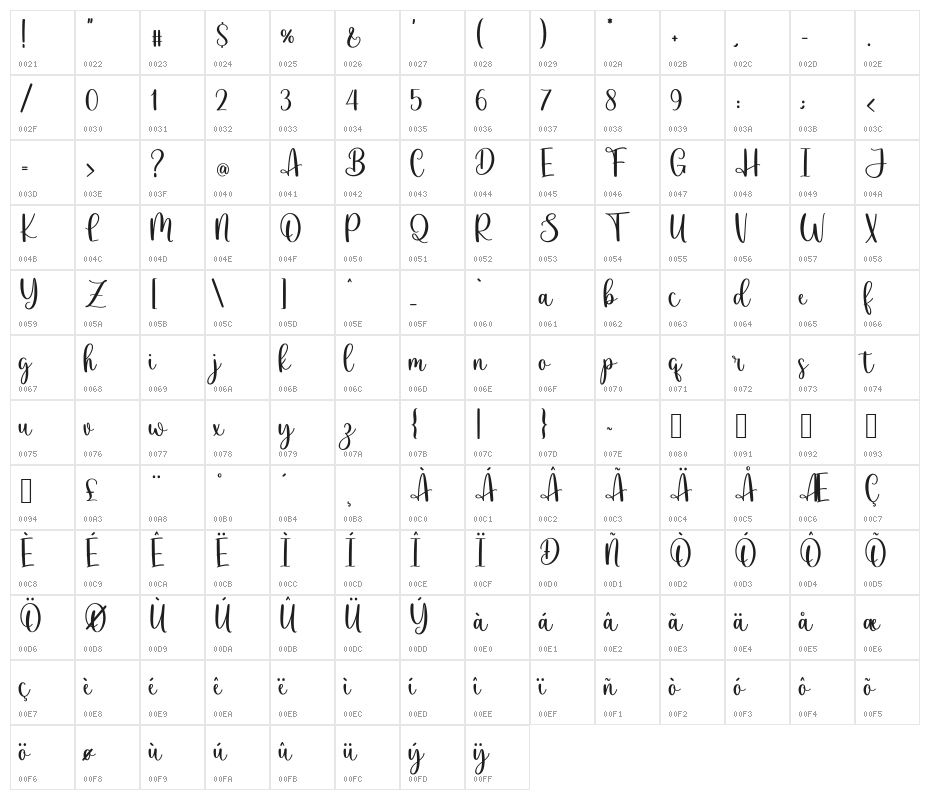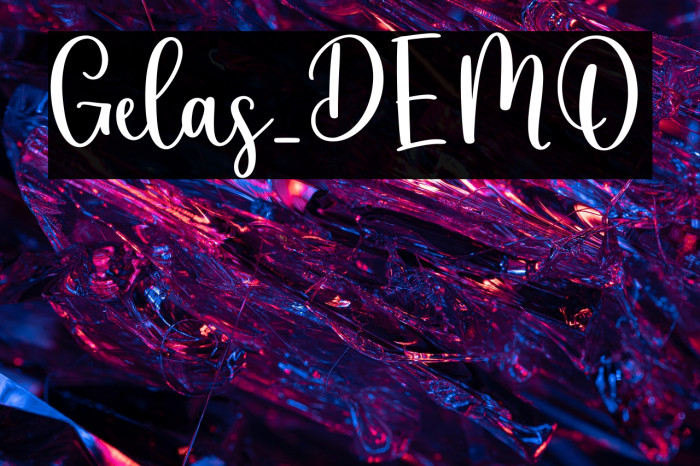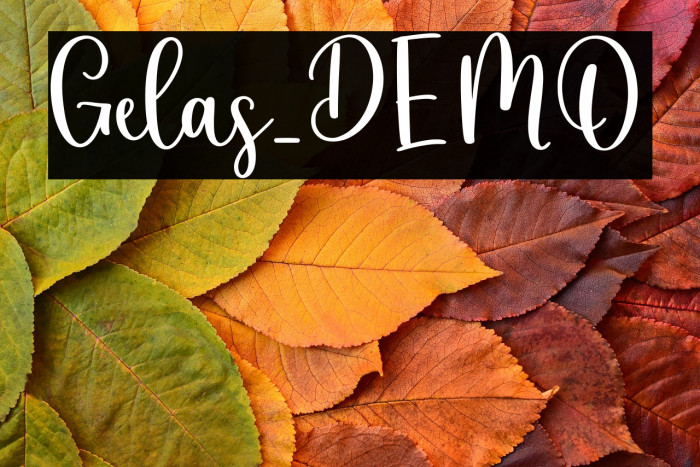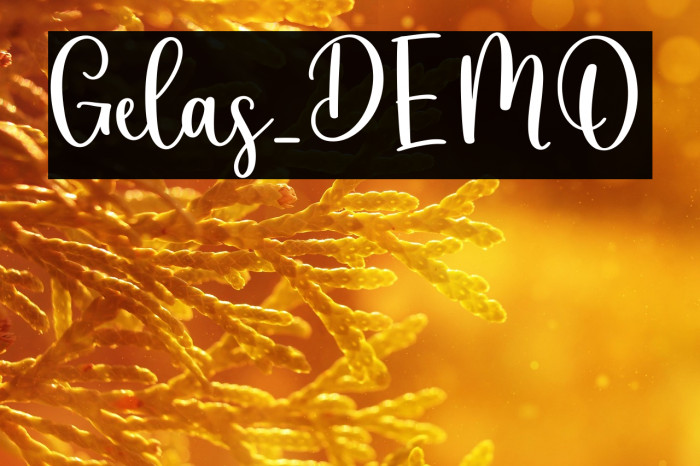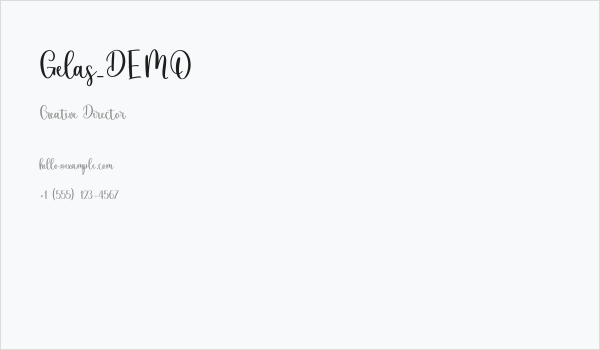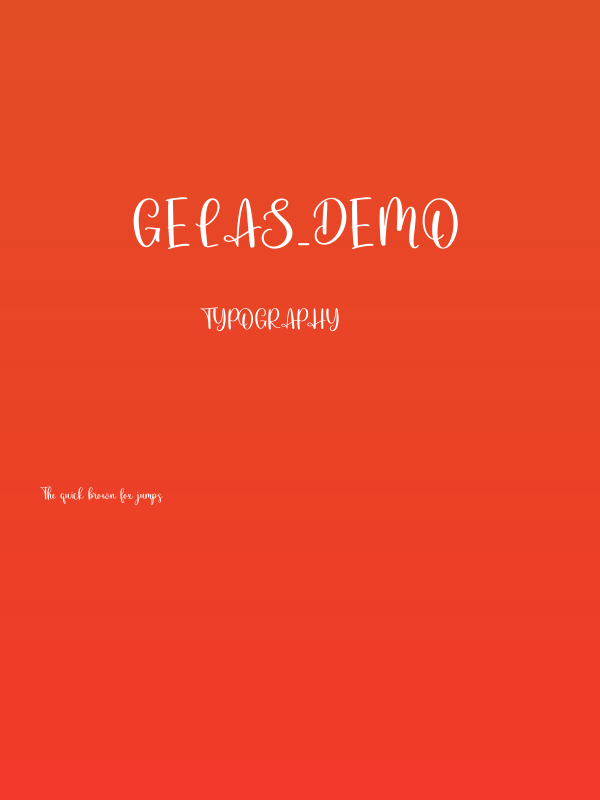
Gelas_DEMO Font
Gelas_DEMO Description
This font features a playful and elegant script style with a handwritten appearance. The characters are fluid and connected, giving a sense of movement and grace. The uppercase letters are bold and slightly whimsical, while the lowercase letters maintain a consistent flow with loops and curves. Numbers and special characters follow the same style, ensuring uniformity across all text. The font's overall aesthetic is both modern and decorative, making it suitable for creative projects.
| Use Case | Logos, Invitations, Creative Projects |
| Proposed Projects | Ideal for wedding invitations, greeting cards, branding, and creative design projects. |